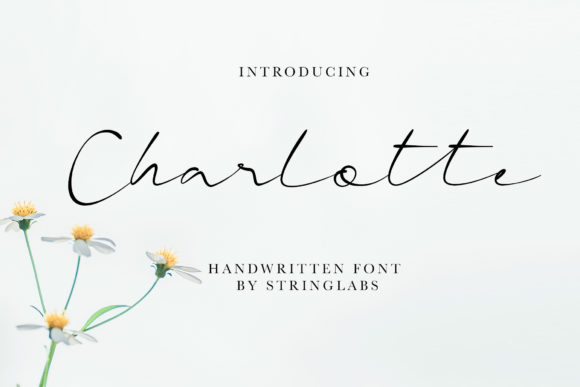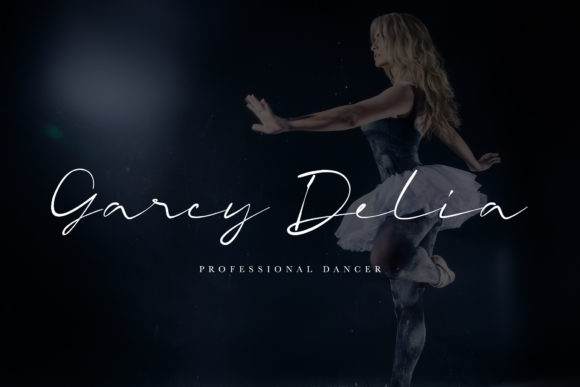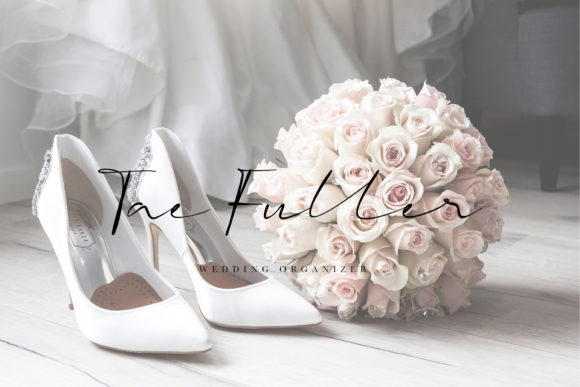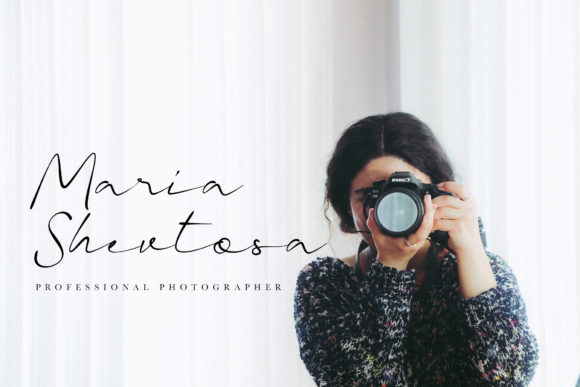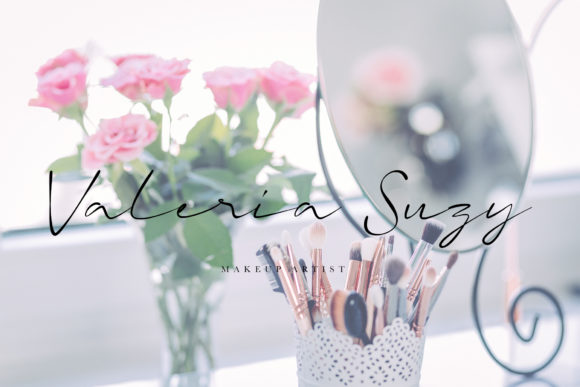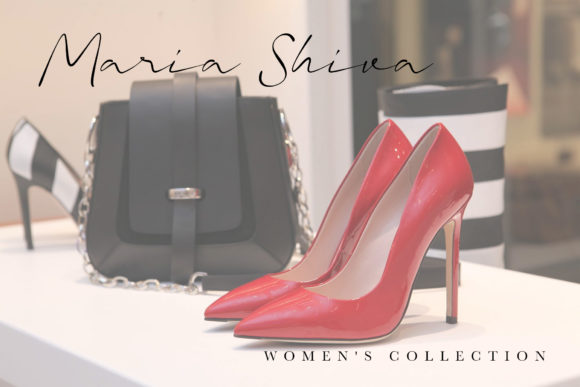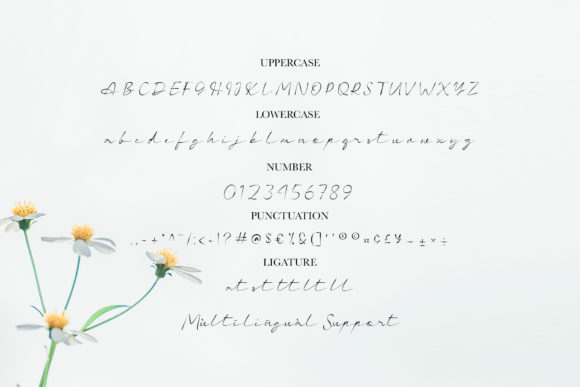
Charlotte Font
About Charlotte Font
Charlotte is a casual script font that will turn any design idea into a true standout. Get inspired by its unique charm!